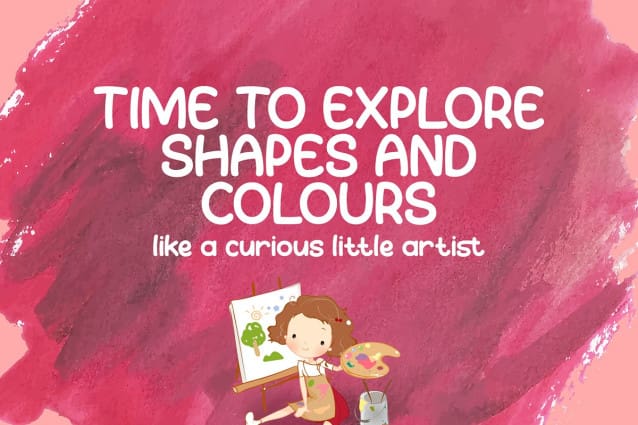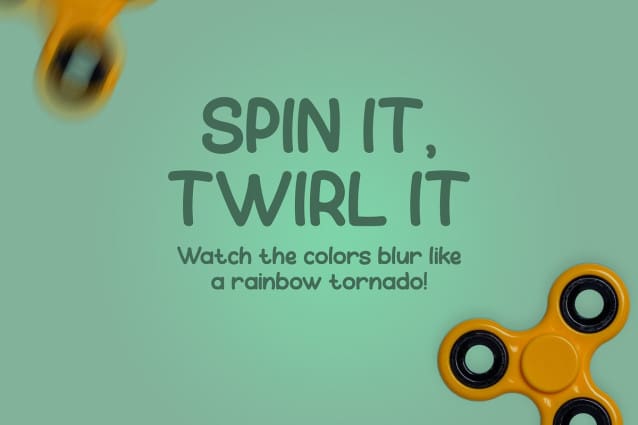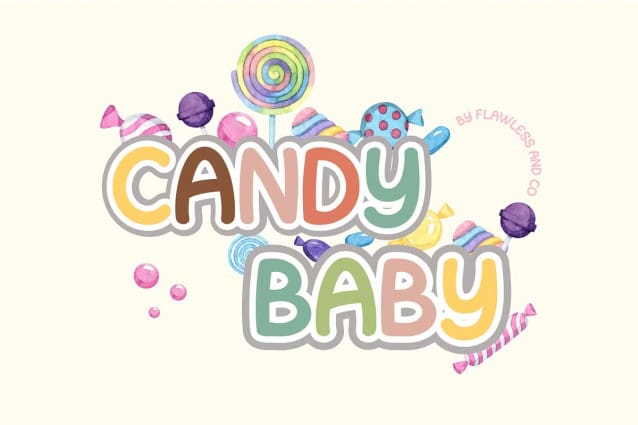
Candy Baby Font
Candy Baby Font – a delightful and whimsical font that adds a touch of playfulness to your designs. With its unique and charismatic letterforms, CandyBaby brings a sense of joy and lightheartedness to any project. This font is suitable for branding, business, logos, magazines, and others.